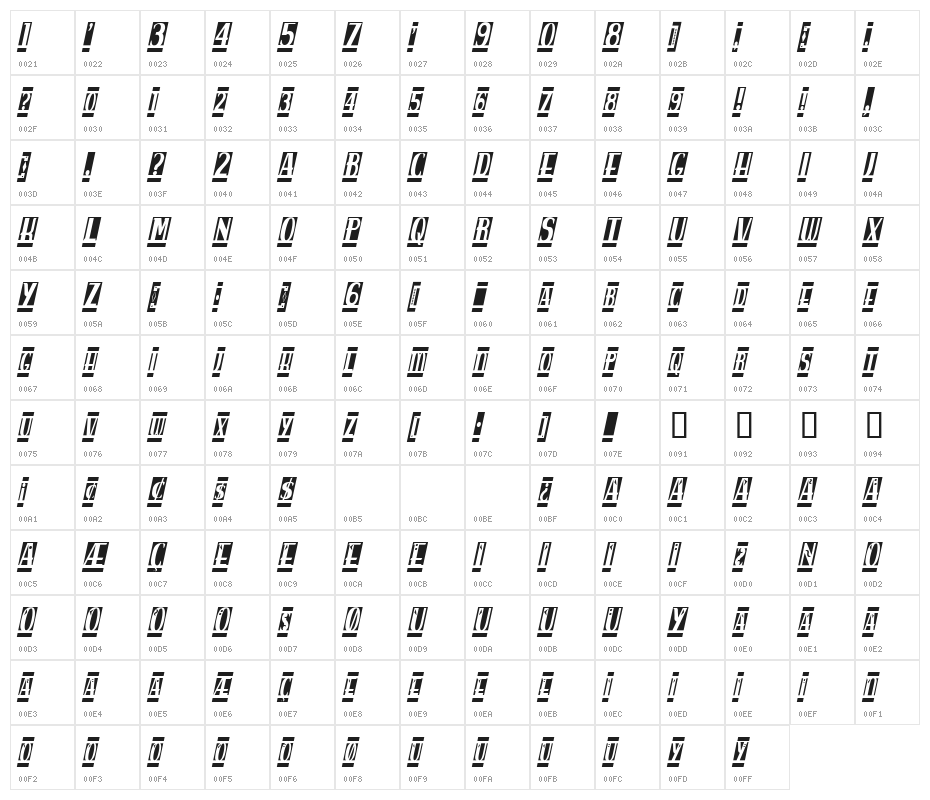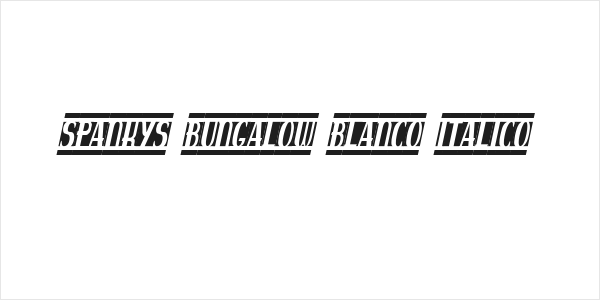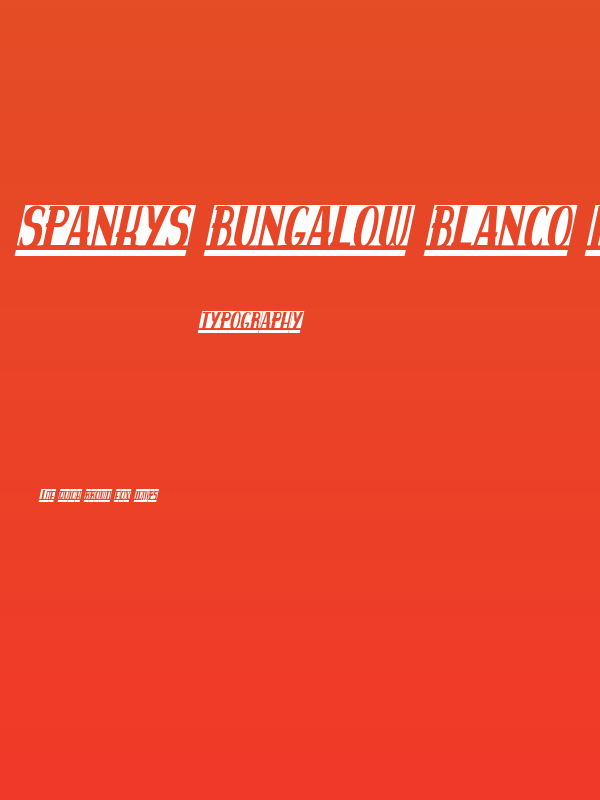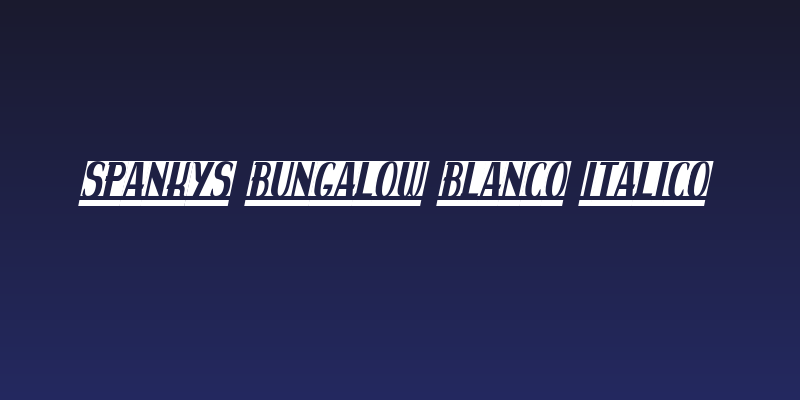
spankys bungalow blanco italico Font
spankys bungalow blanco italico Description
This font exhibits a bold and dynamic style with a strong italic slant, giving it a sense of motion and energy. The characters are designed with high contrast between thick and thin strokes, enhancing their dramatic appearance. The uppercase letters are particularly striking, with sharp angles and a modern flair. The lowercase letters maintain the same boldness, ensuring consistency across different text sizes. The numerals and special characters are equally bold, making them stand out effectively. This font's unique style is ideal for projects that require a strong visual impact.
| Proposed Projects | Ideal for posters, headlines, branding, and any design needing a bold statement. |